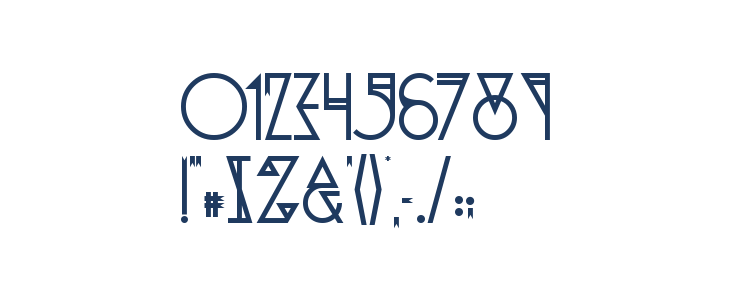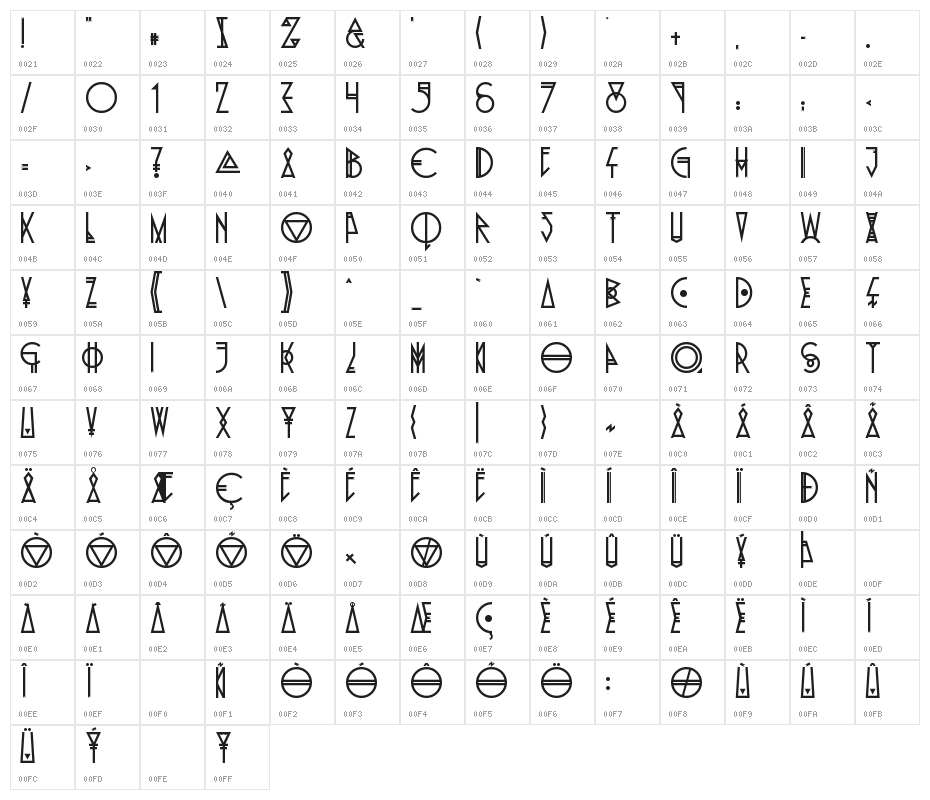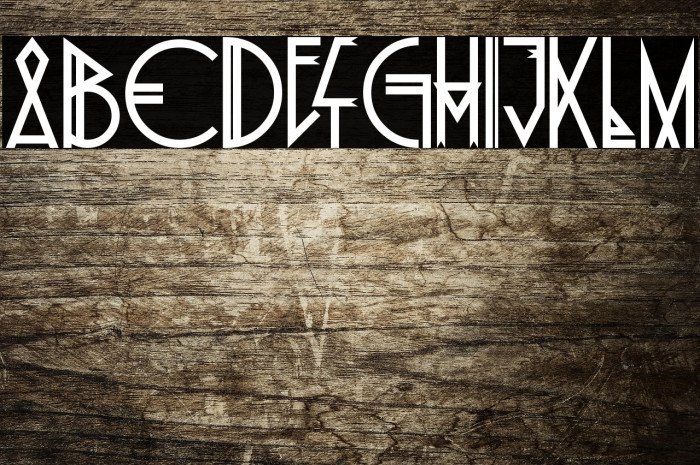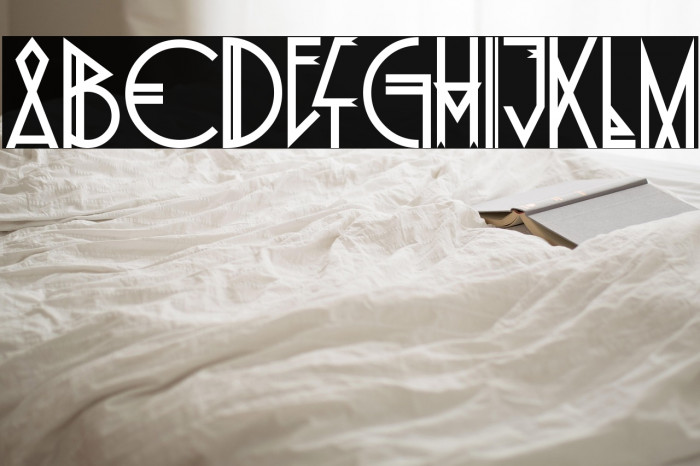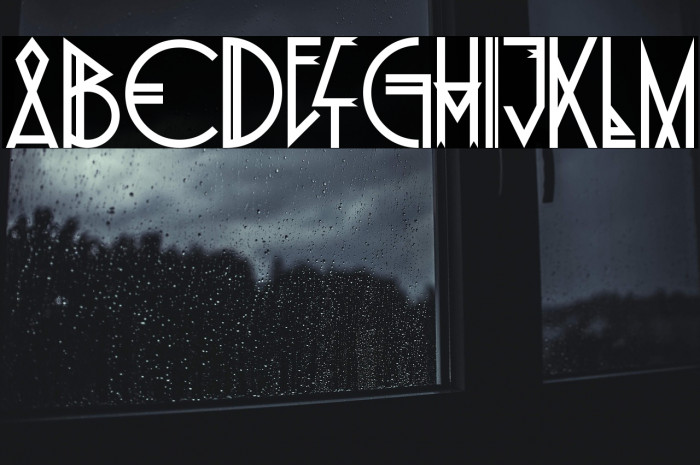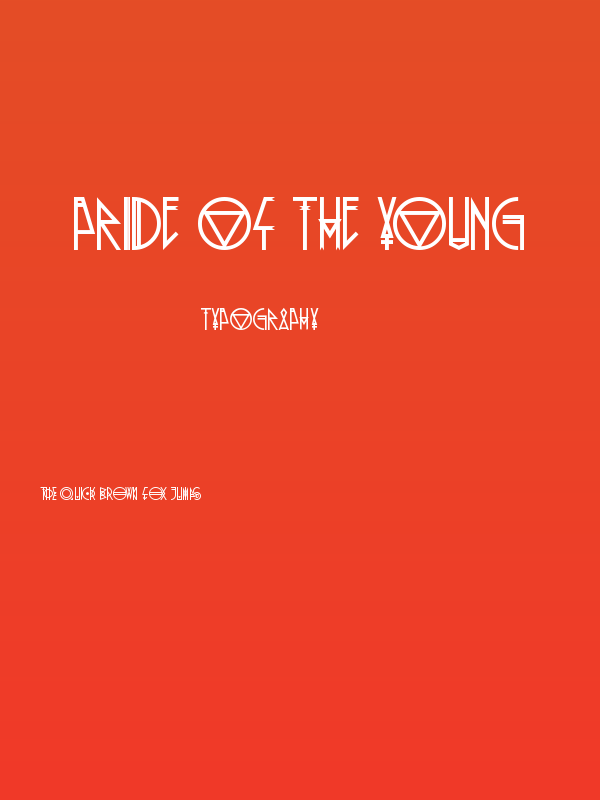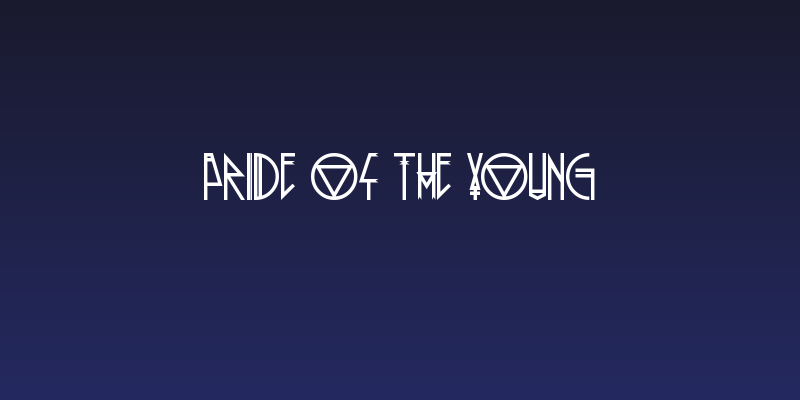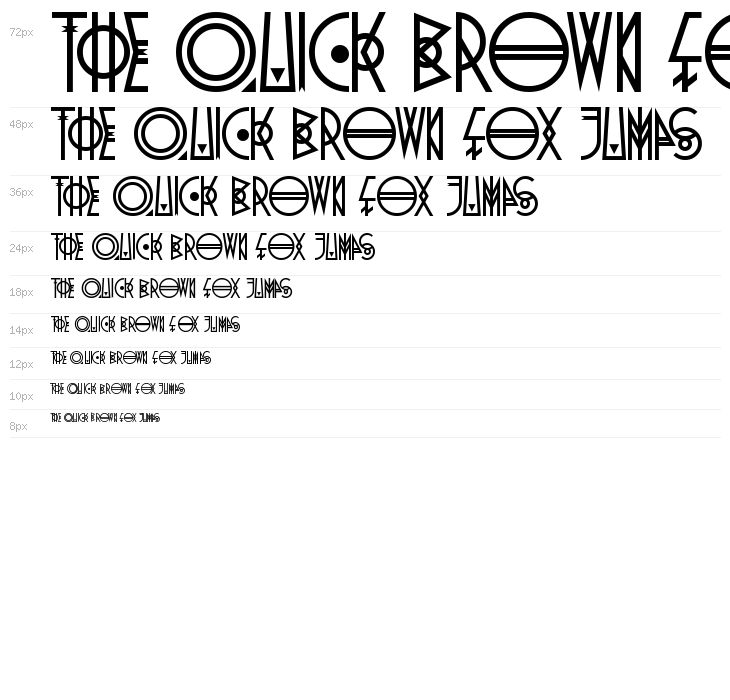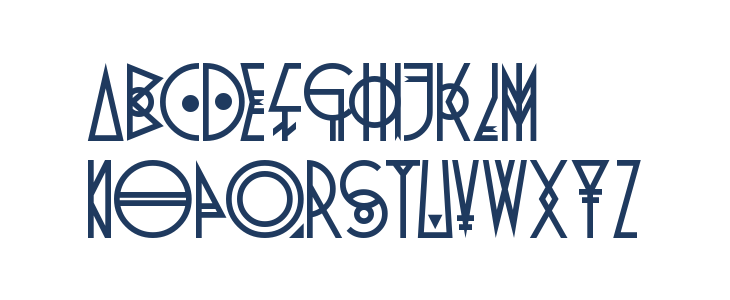
Pride Of The Young Font
Pride Of The Young Description
This font features a highly decorative and geometric style, characterized by bold lines and unique shapes that create a futuristic and artistic appearance. Each letter is crafted with intricate details, incorporating elements such as circles, triangles, and angular cuts that give it a distinct and avant-garde look. The uppercase and lowercase letters maintain a consistent design theme, while the numbers and special characters complement the overall aesthetic. This font is visually striking, making it ideal for projects that require a strong visual impact.
| Overall Style | Futuristic, Artistic |
| Proposed Projects | Ideal for branding, posters, album covers, and any project seeking a futuristic and artistic flair. |